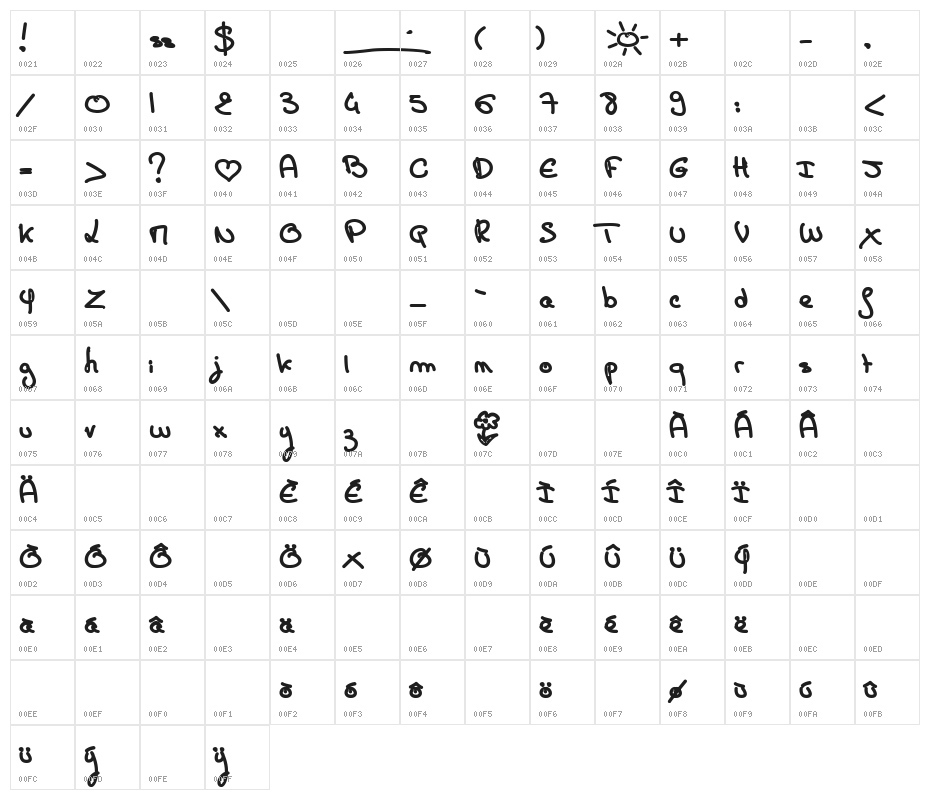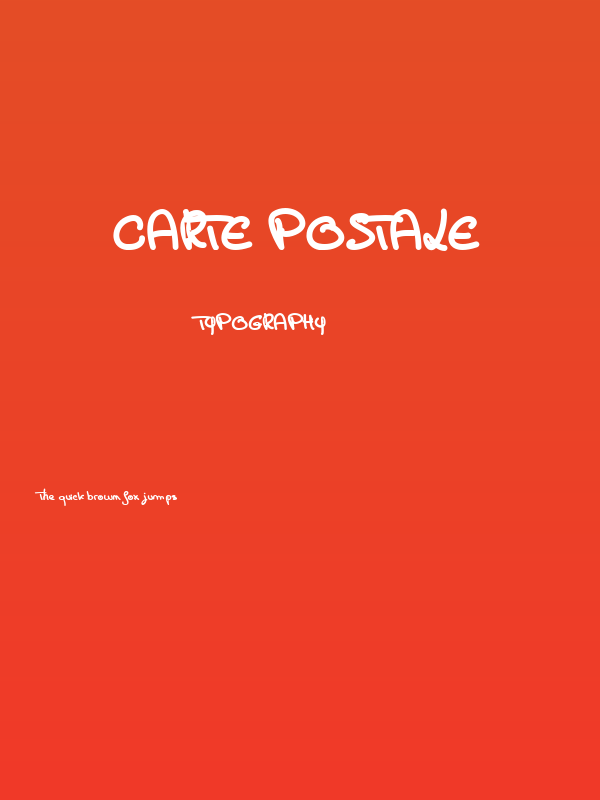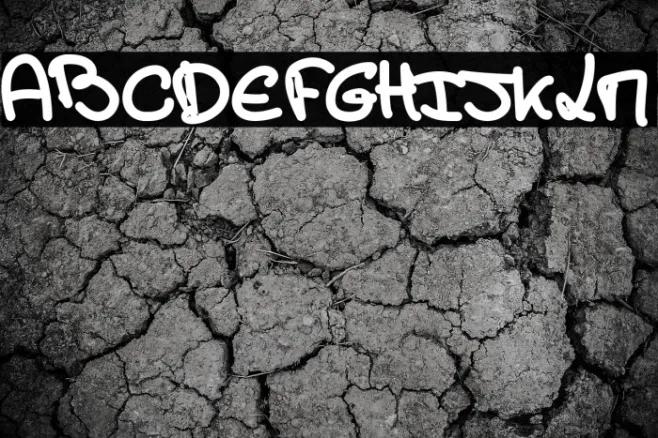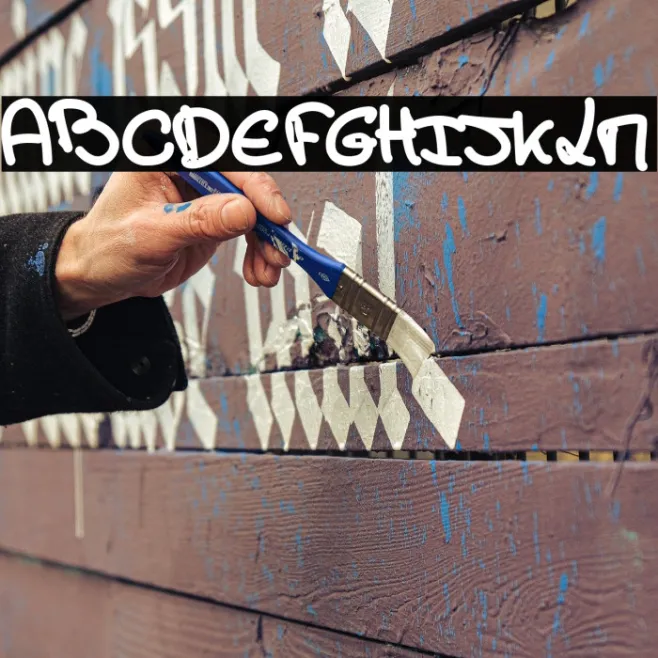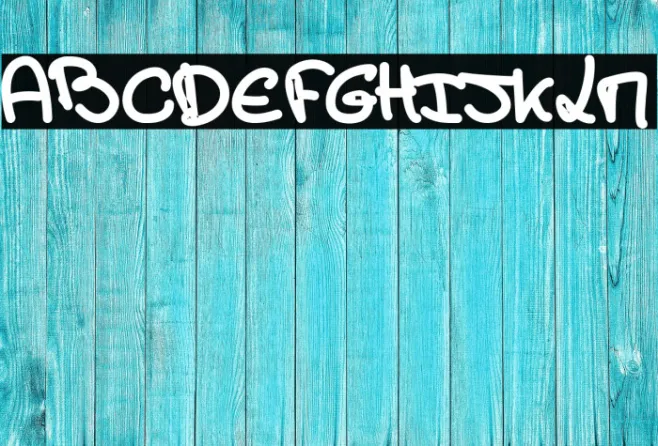
Carte Postale Font
Carte Postale Description
This font exudes a playful and casual handwritten style, characterized by its bold and rounded strokes. The letters are slightly irregular, giving it a lively and informal appearance. The uppercase and lowercase letters maintain a consistent style, with a noticeable emphasis on curves and loops. The numbers and special characters follow the same playful aesthetic, making them easily recognizable and cohesive with the overall design. This font is perfect for projects that require a personal touch or a sense of whimsy.
| Proposed Projects | Ideal for greeting cards, children's books, casual invitations, and playful branding. |